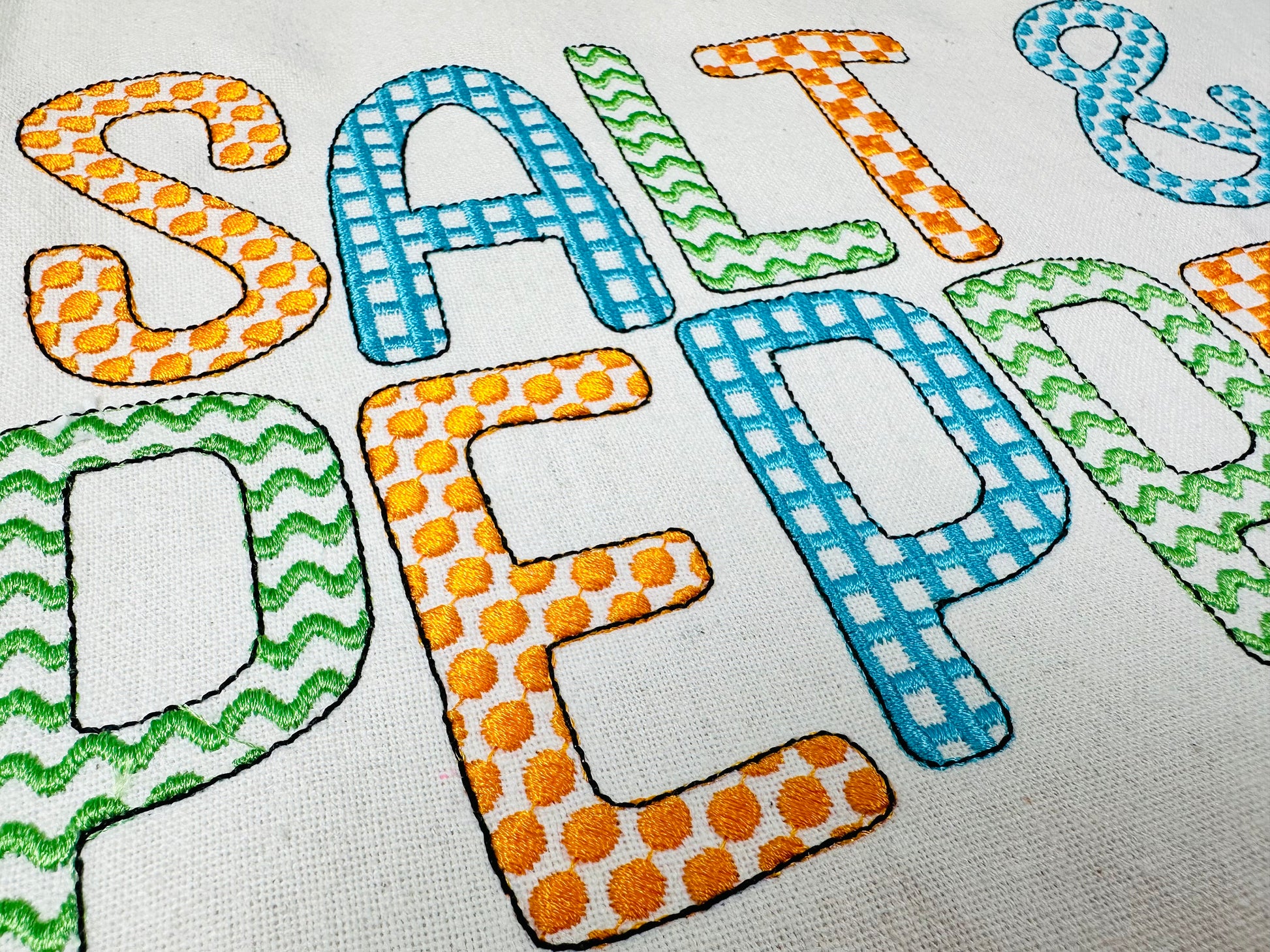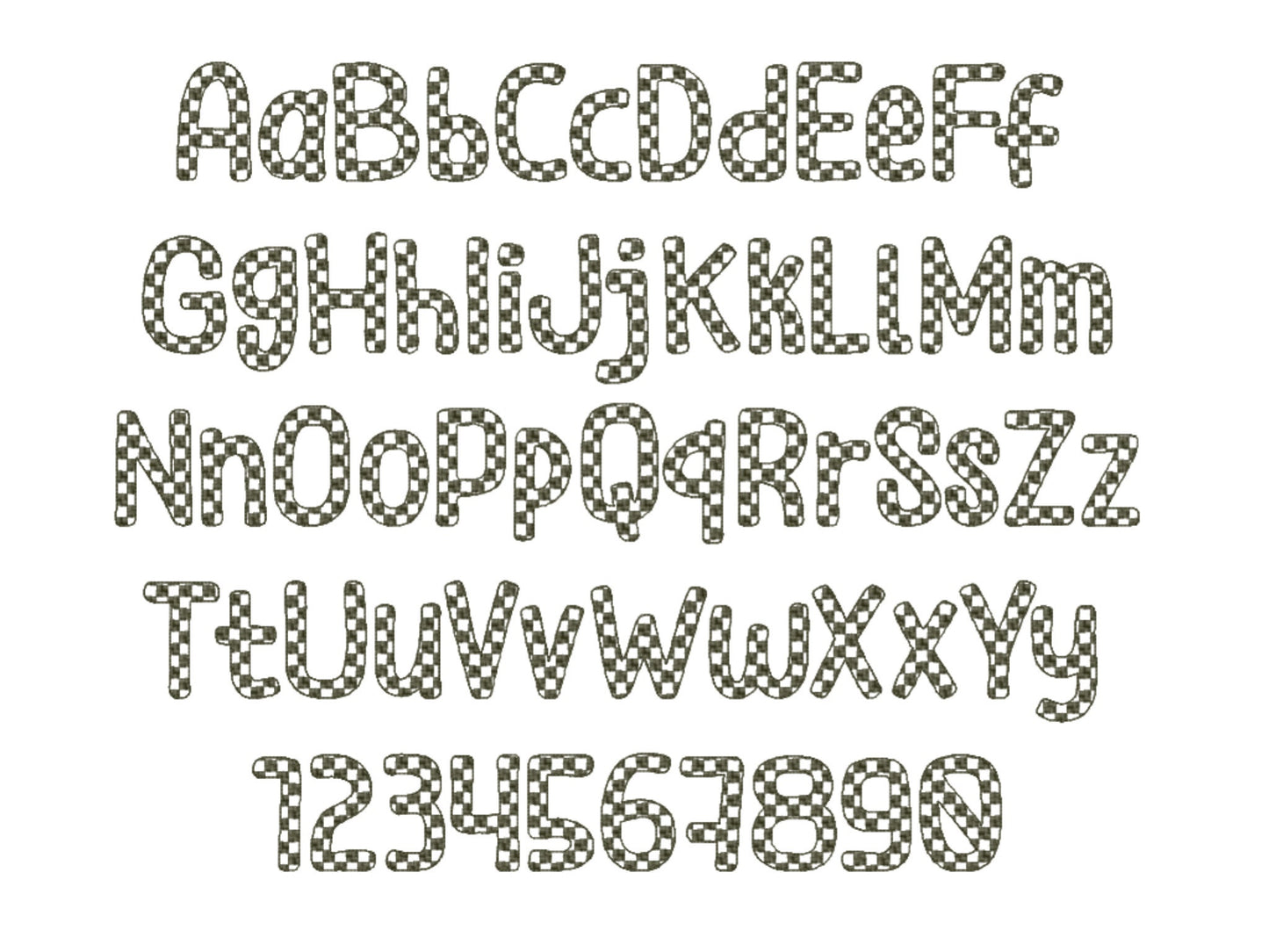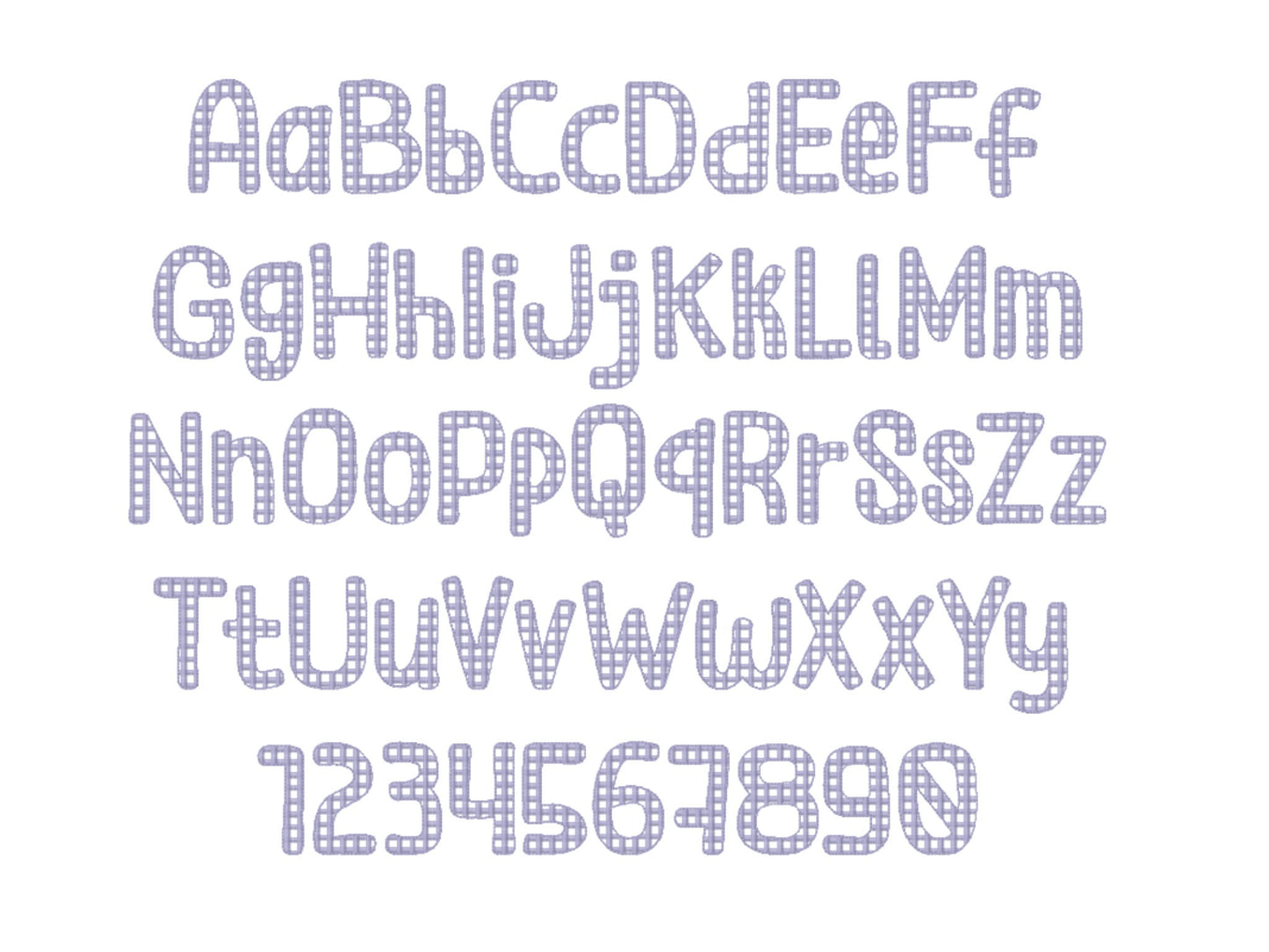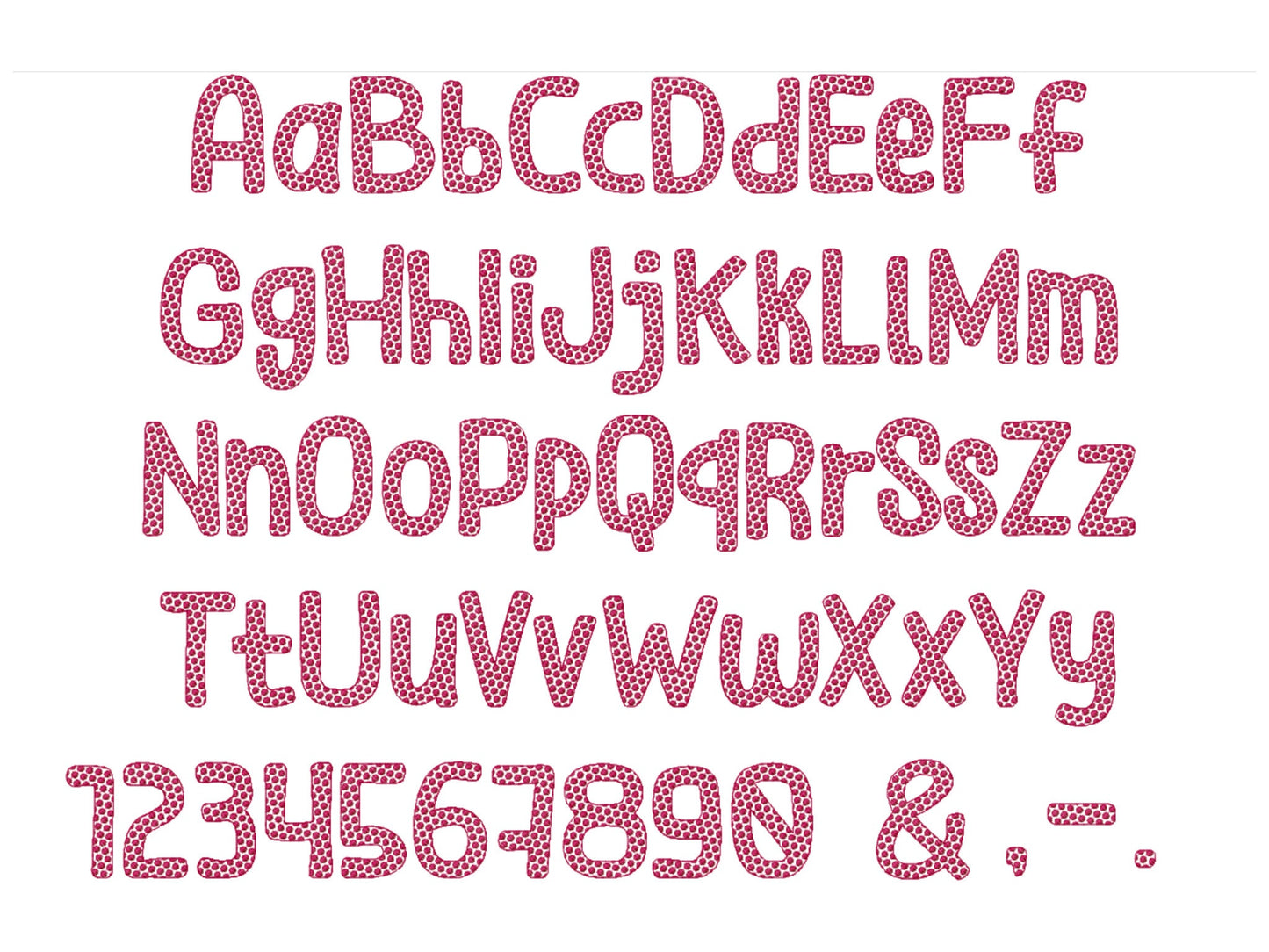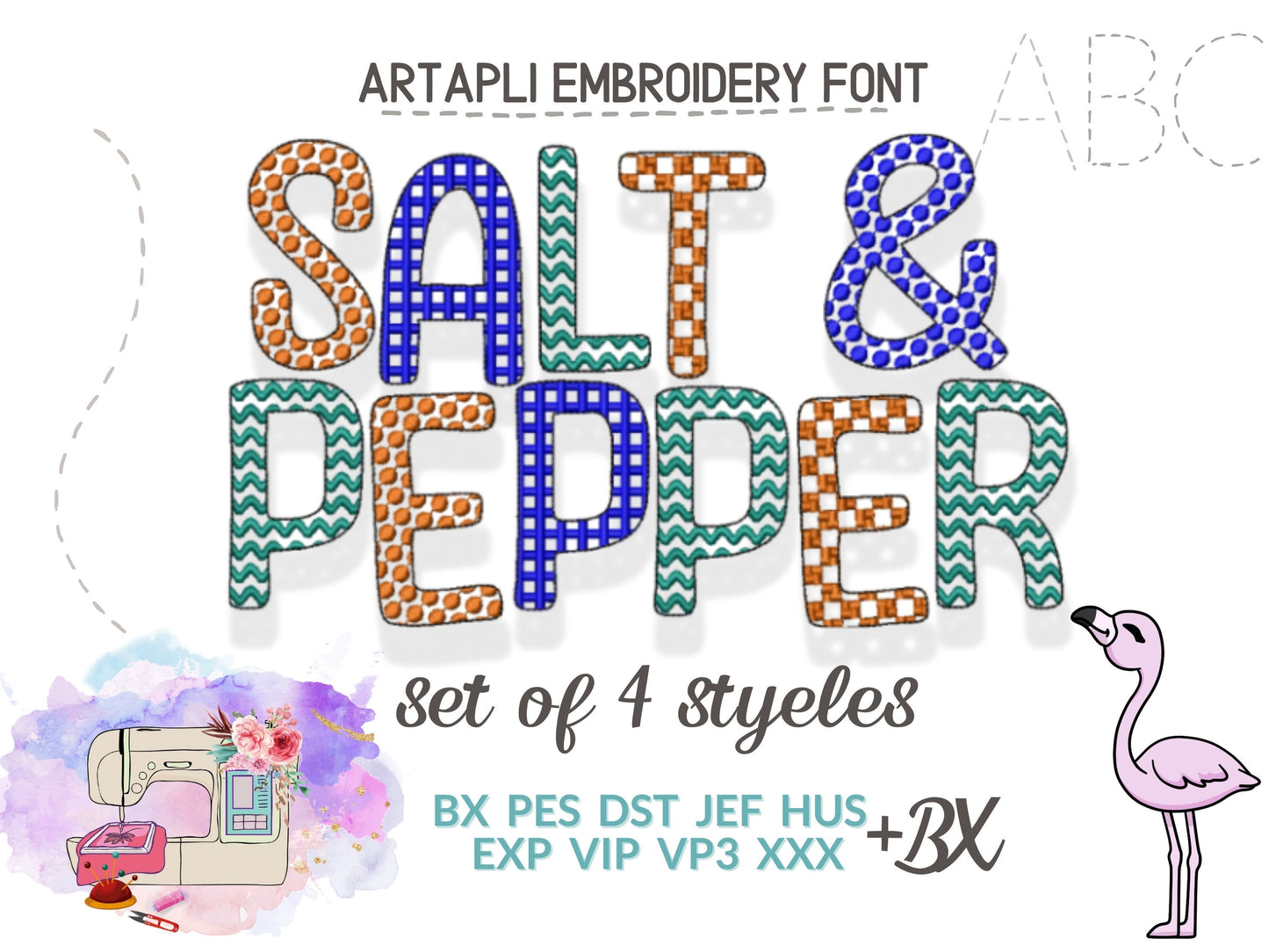
Dots Checks Waves Cube Font Set
Four fonts: checkers, gingham, polka dots and ricrac. Each has uppercase and lowercase letters, numbers 0 to 9 and punctuation, in eight sizes: 0.8, 1.2, 1.5, 2, 2.5, 3, 4 and 5 inches. The letters have a pattern inside and a light bean stitch outline.
- 4 patterned fonts: checkers, gingham, polka dots, ricrac
- Uppercase, lowercase, numbers 0 to 9, punctuation
- 8 sizes, 0.8 to 5 in